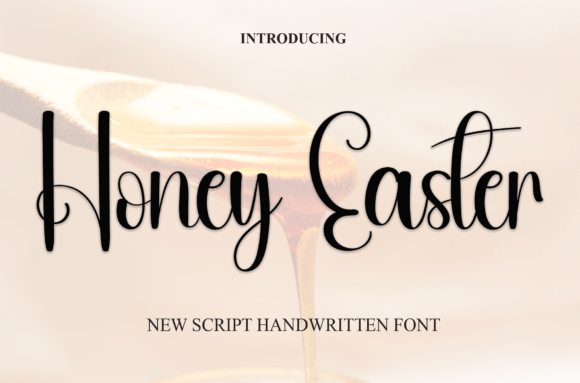
Introducing Honey Easter Font - A Sweet Symphony of Elegance and Charm!
In a world where individuality and creativity reign supreme, Honey Easter Font emerges as a captivating masterpiece, a font family that exudes a sweet and friendly handwritten allure. Inspired by the joyous spirit of Easter, this script font is a delightful blend of playfulness and sophistication, perfect for adding a touch of whimsy and warmth to your designs.
Crafted with meticulous attention to detail by the talented William Jhody, Honey Easter Font possesses a unique charm that sets it apart from the ordinary. Its fresh and neat appearance makes it an ideal choice for crafting wedding invitations, greeting cards, and any other design project that calls for a touch of playful elegance.
With Honey Easter Font, your words will dance across the page, carrying a sense of joy and lightheartedness. Its graceful curves and playful strokes create a visual harmony that captivates the eye, inviting readers to immerse themselves in the beauty of your creations.
But Honey Easter Font is more than just a pretty face. It's a versatile performer that adapts seamlessly to a wide range of design styles. Whether you're creating whimsical illustrations, heartwarming posters, or eye-catching social media graphics, Honey Easter Font will elevate your designs with its effortless charm and undeniable appeal.
So, let your creativity soar and embark on a delightful journey with Honey Easter Font. Its sweet and friendly demeanor will add a touch of magic to your designs, leaving a lasting impression on your audience. Embrace the spirit of Easter and let Honey Easter Font transform your creations into works of art!